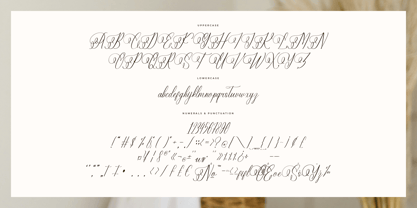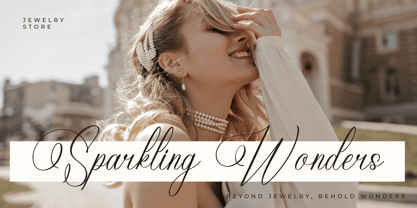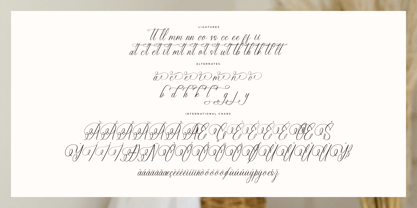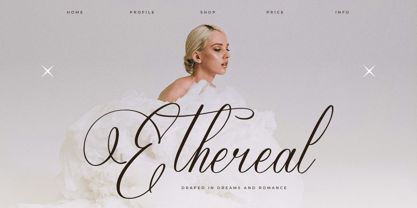
Eladorna
by Letterena Studios
The Eladorna Font Family was designed by Heru Utama Putra and published by Letterena Studios. Eladorna contains 2 styles and family package options. More about this family
Eladorna Gladiota is a stylish and elegant script font that weaves sophistication into every stroke. Its fluid, gracefully connected letterforms exude a timeless charm. Ideal for projects requiring a refined and luxurious touch, Eladorna Gladiota adds a distinctive and upscale script aesthetic to your designs.